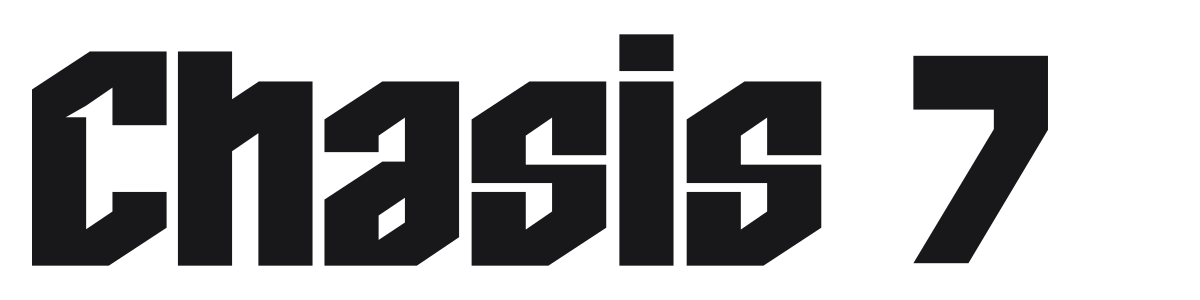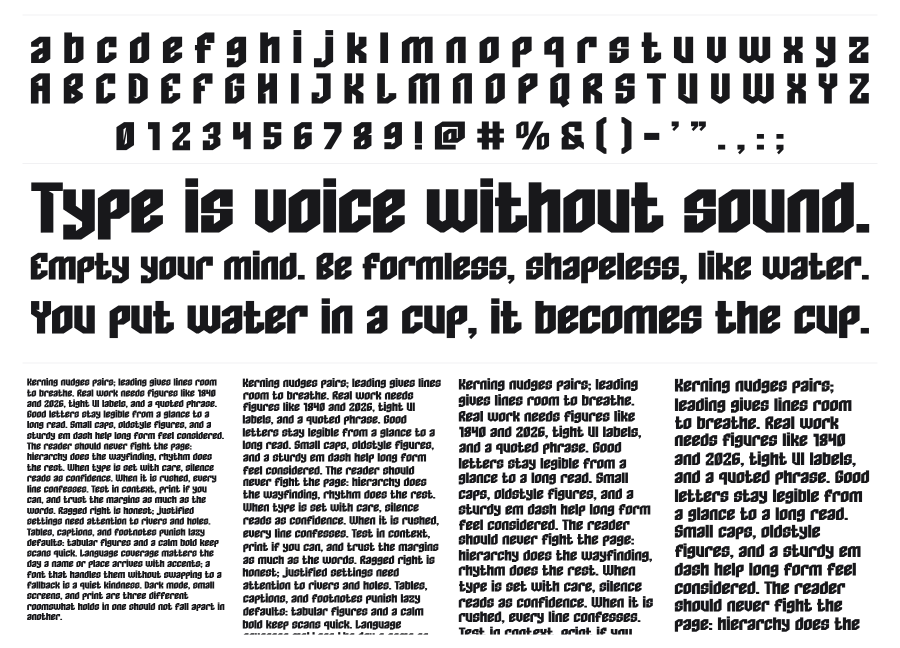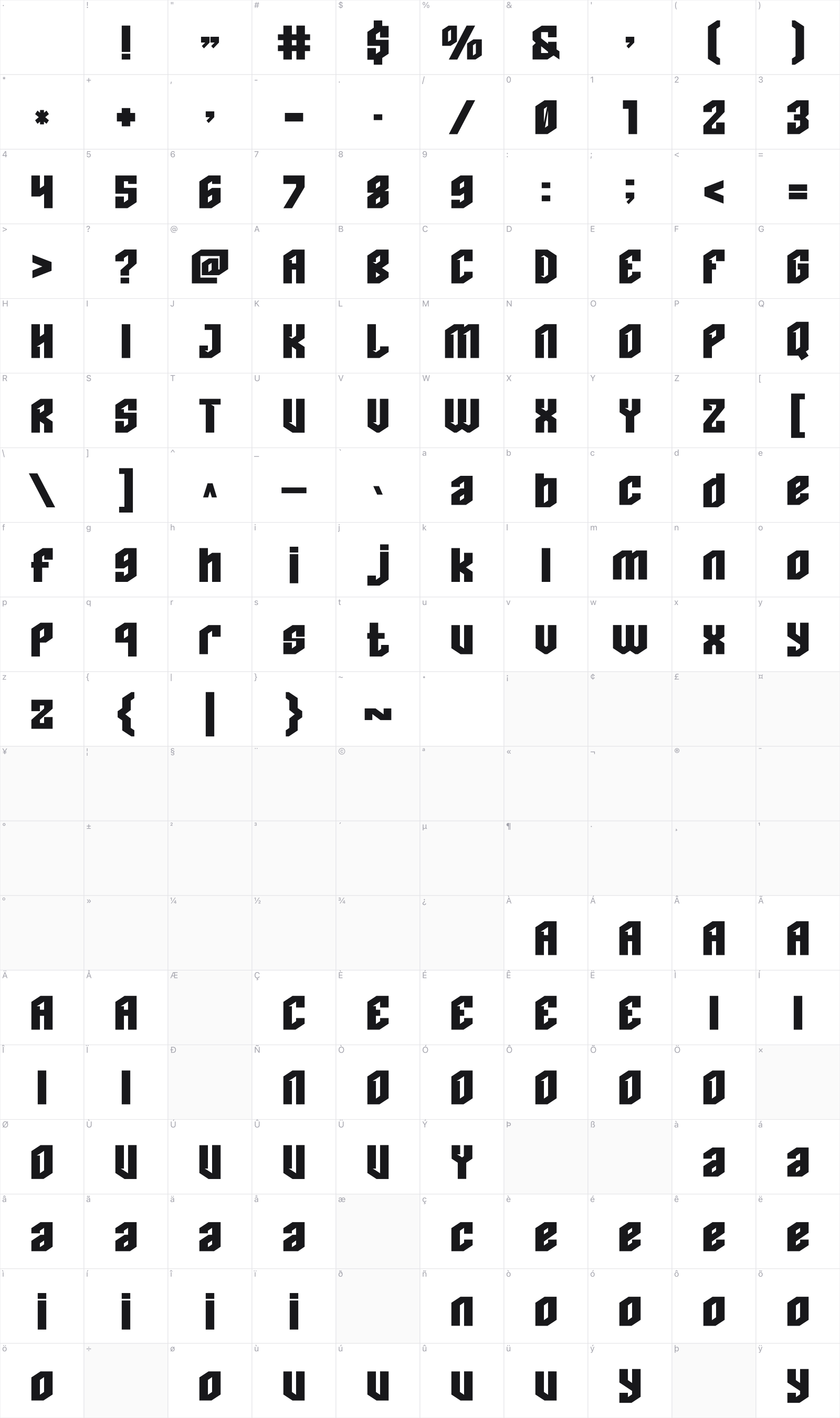
Chasis 7
Chasis 7 is a heavy condensed display font built on sharp diagonal cuts and aggressive angular notches borrowed from blackletter construction. The letters are bold and tightly packed, with a raw urban energy that suits titles, posters, and brand identities in the gaming, sports, and streetwear space. It carries a distinctly 90s underground aesthetic without feeling dated.